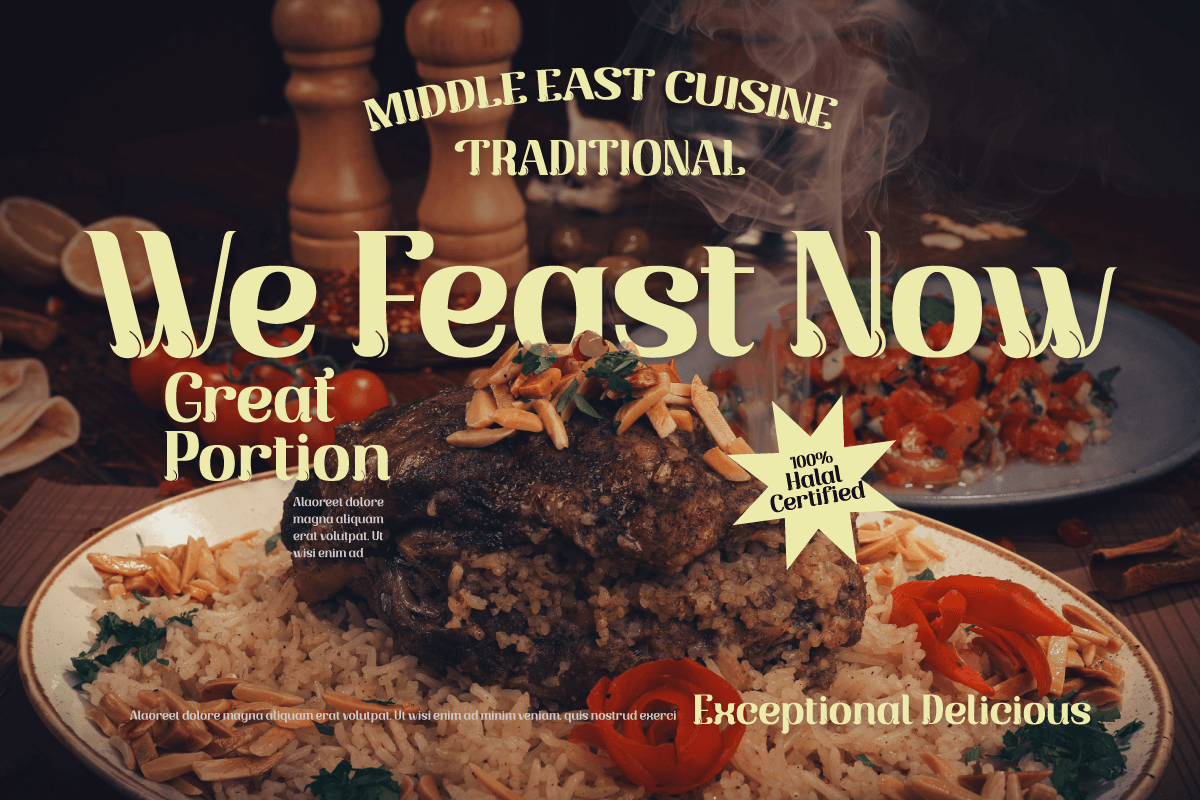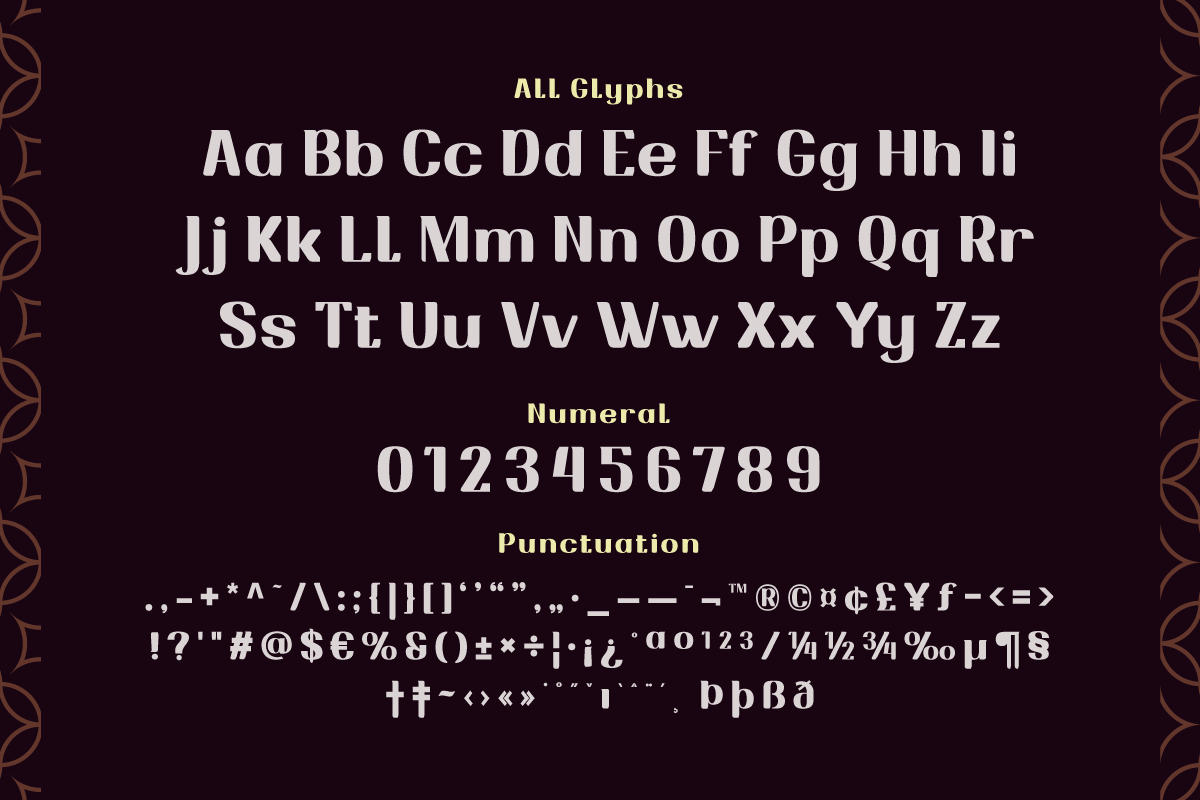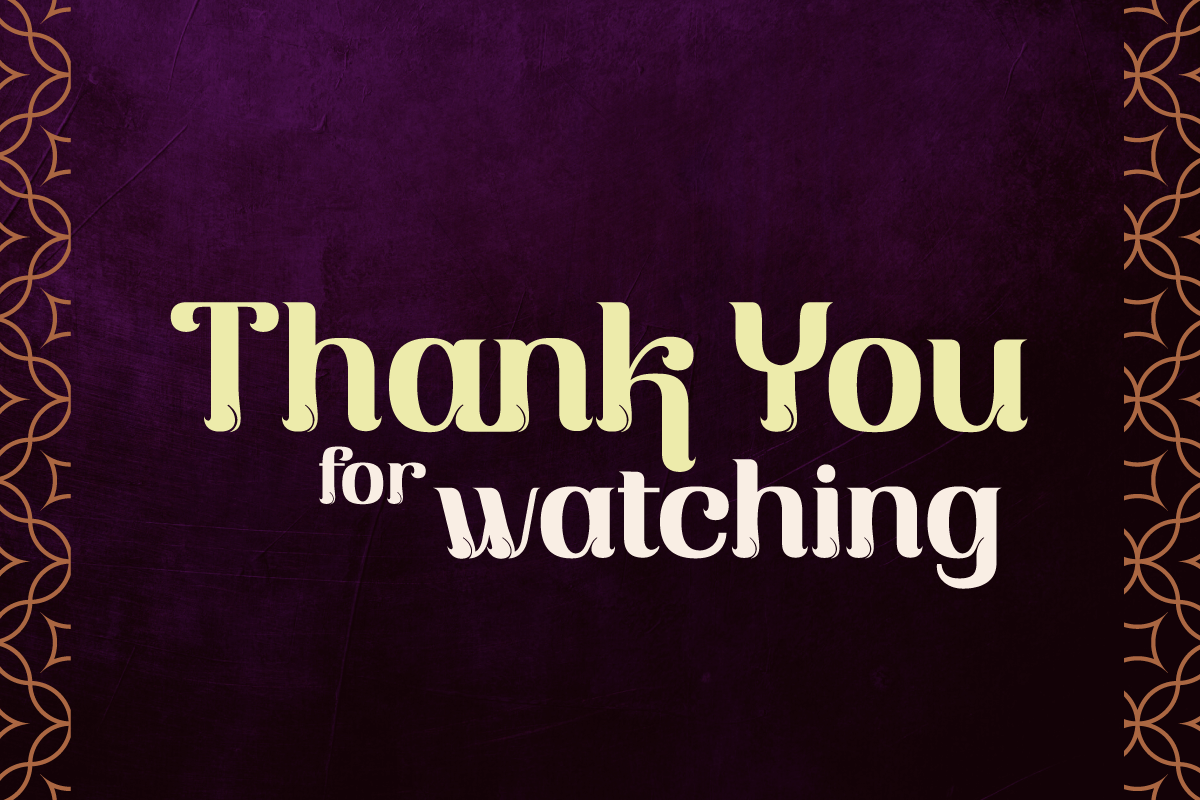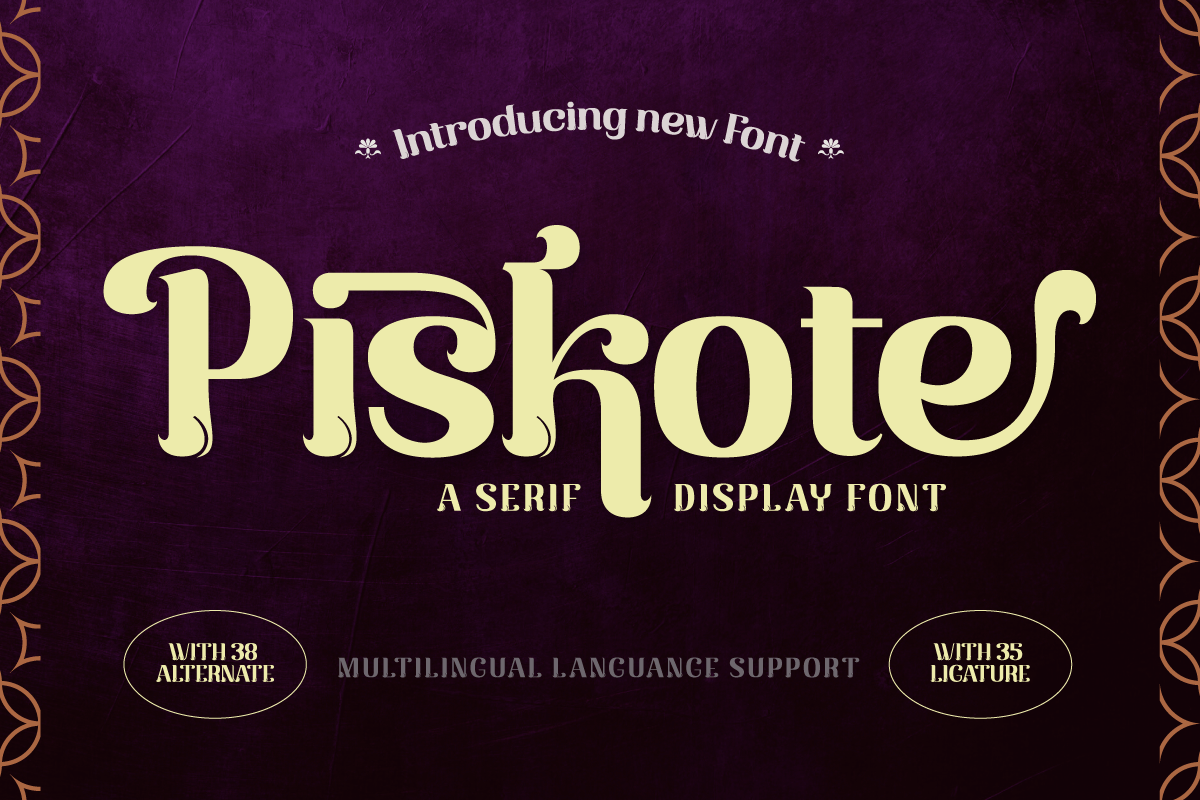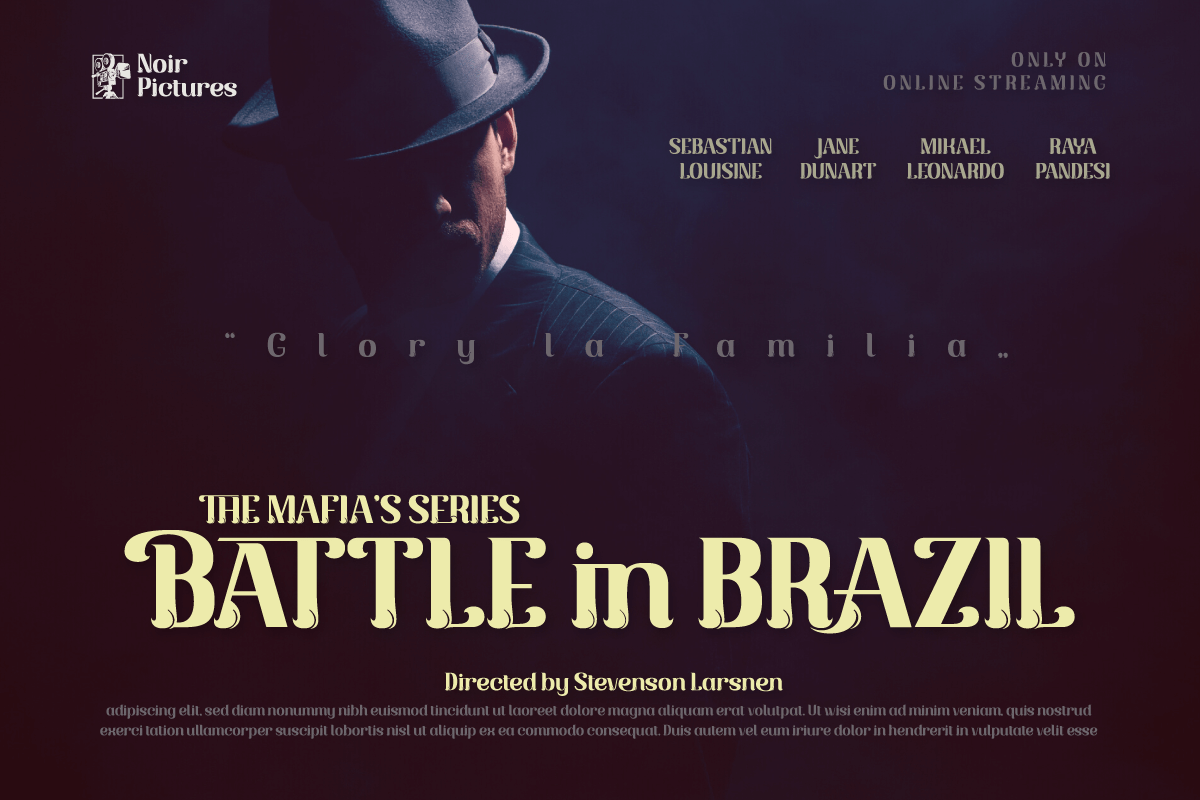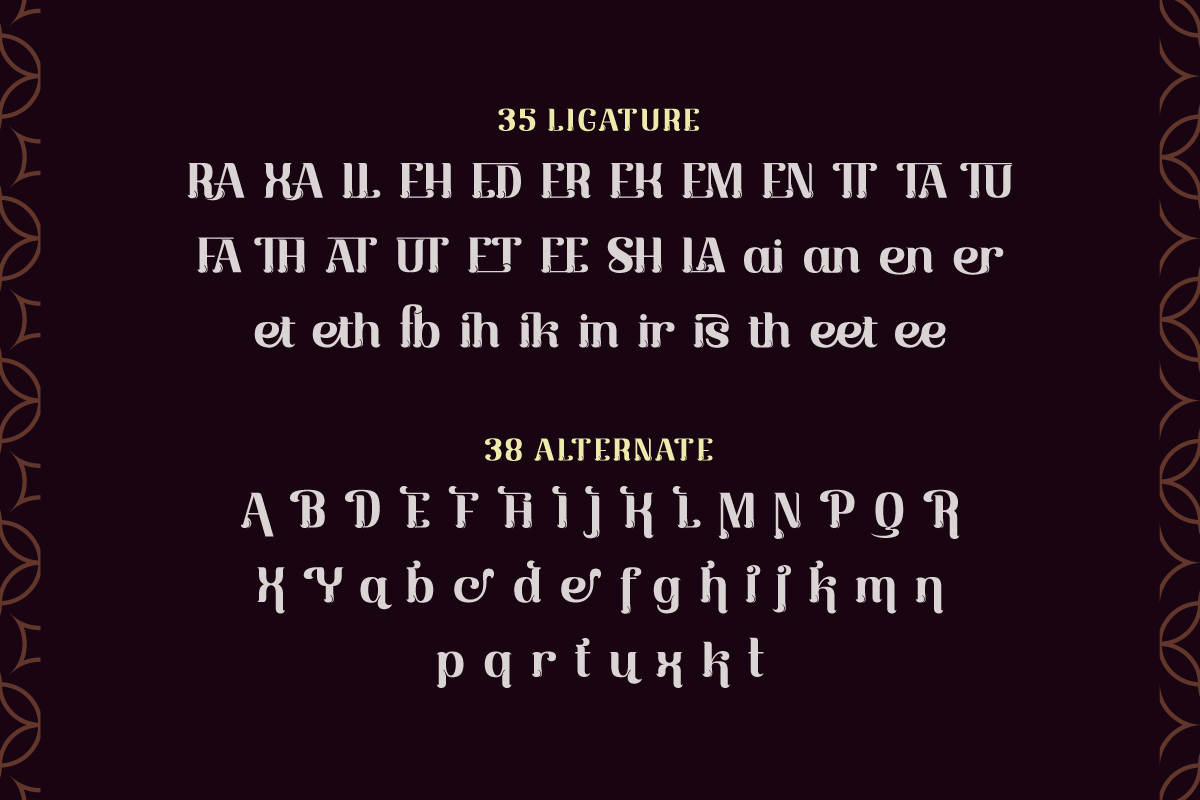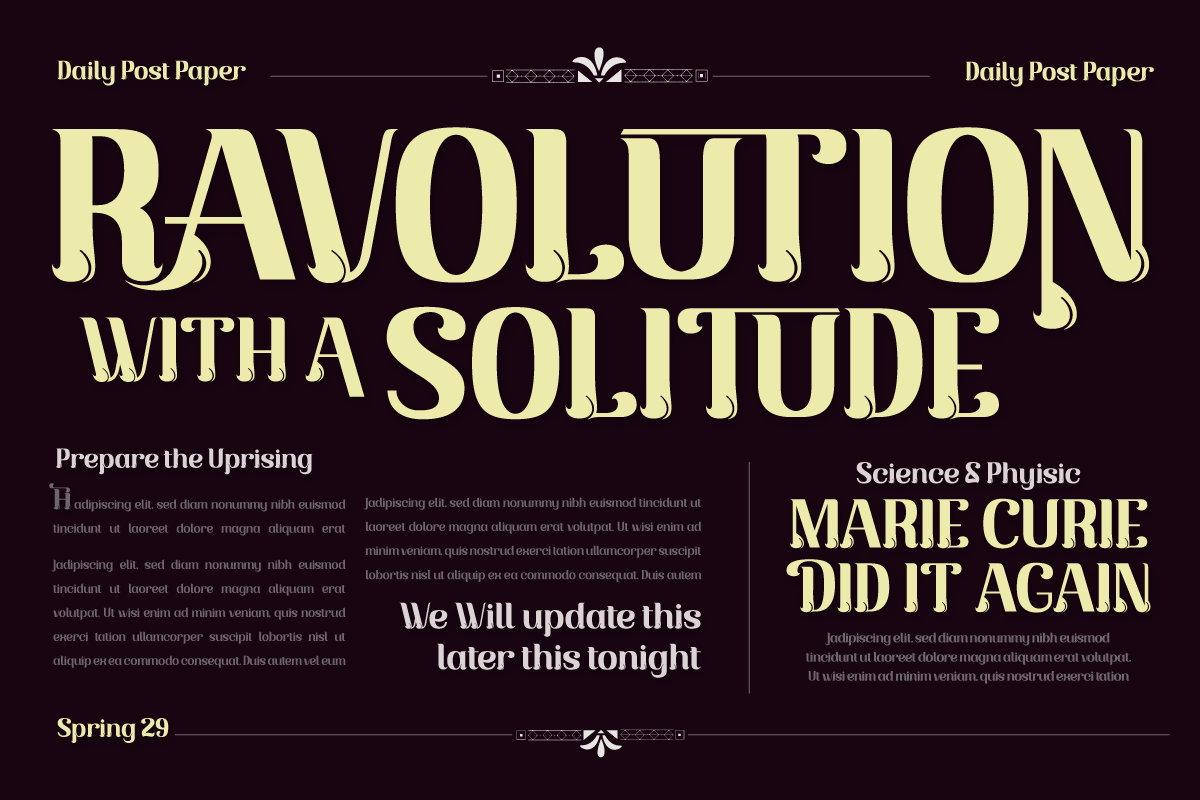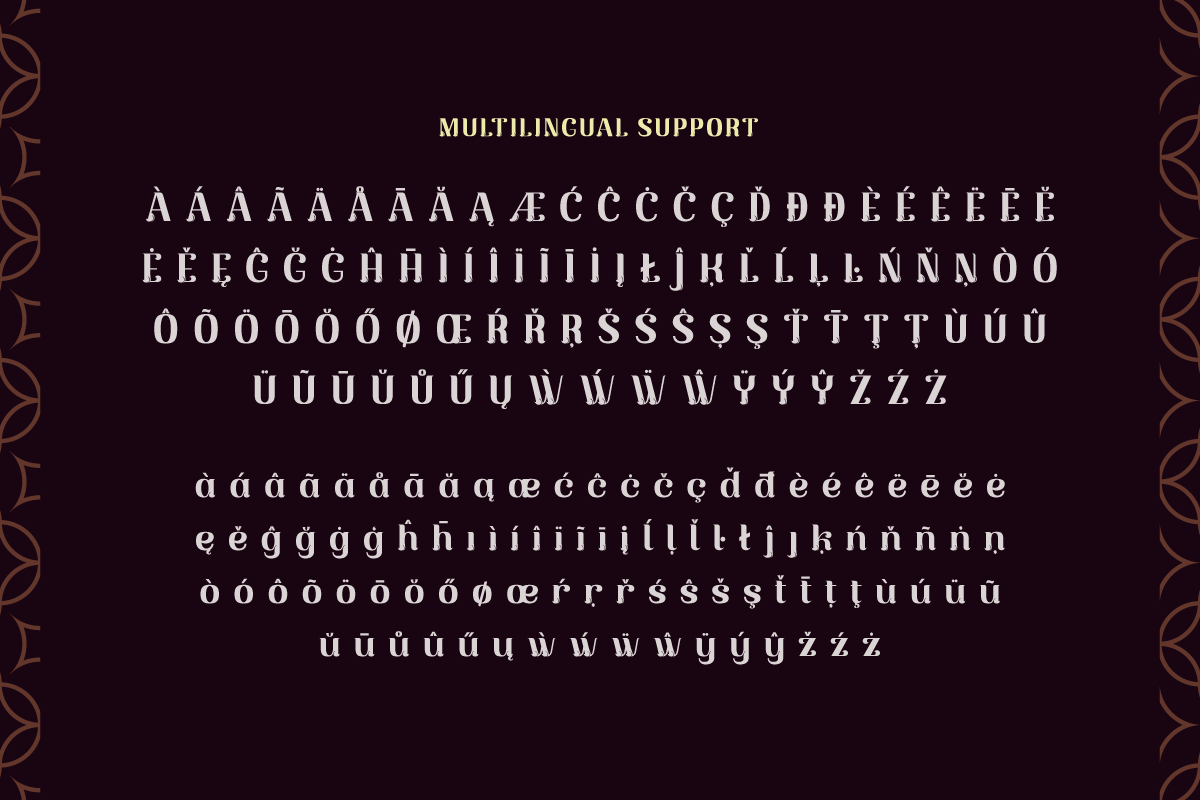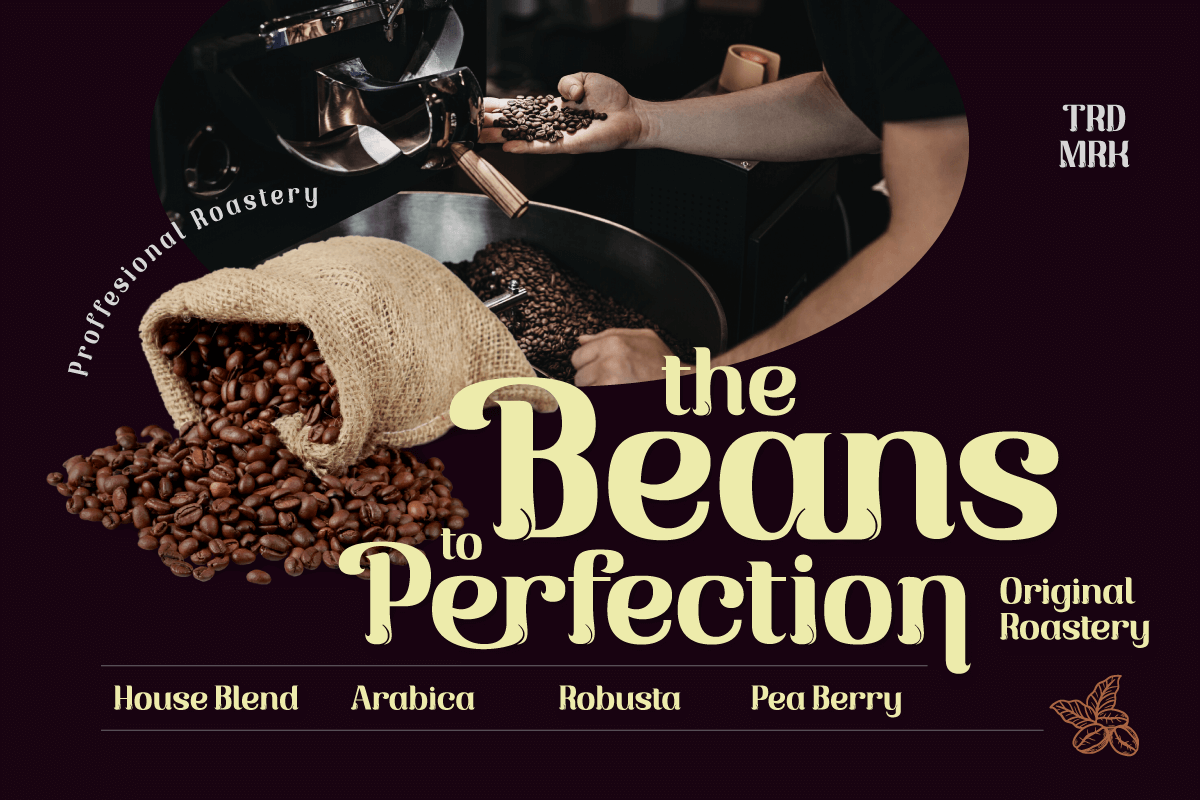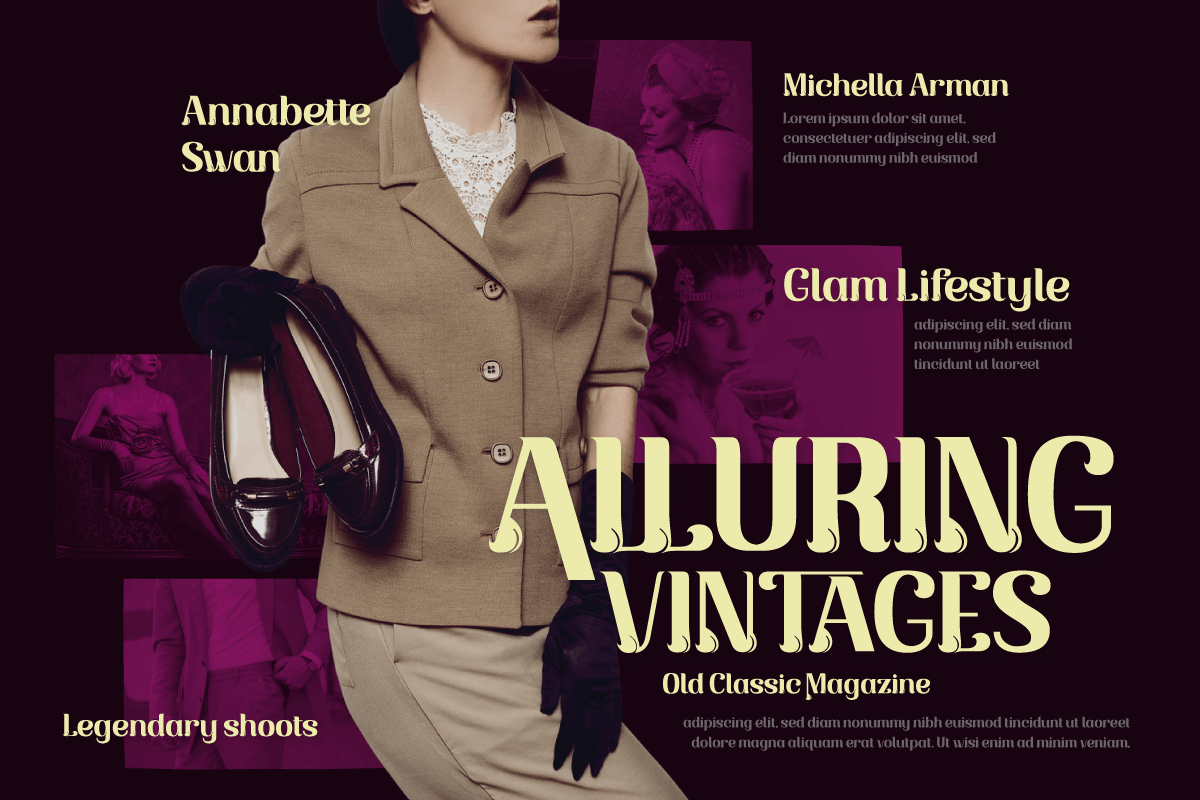
Piskote | Display Font
Piskote, is an eye-catching display font that brings a touch of elegance to any of your projects. With a theme that is relaxed but still exudes elegance, Piskote is the perfect solution for creating designs that catch attention and give off a signature charm.
Piskote’s excellent features will make your designs even more special. With the available ligatures and alternates, you can combine beautiful characters and bring interesting variations to your typography designs.
Piskote also supports multilingualism, allowing you to reach a global audience and adapt this font to different languages. That way, you can adapt your design to the needs and preferences of your target market.
With a relaxed yet elegant style, Piskote adds a special touch to each of your projects. Let this font be your creative partner in creating stunning and stunning designs.
- Alternate, Ligature
- Fonts include Multilingual support